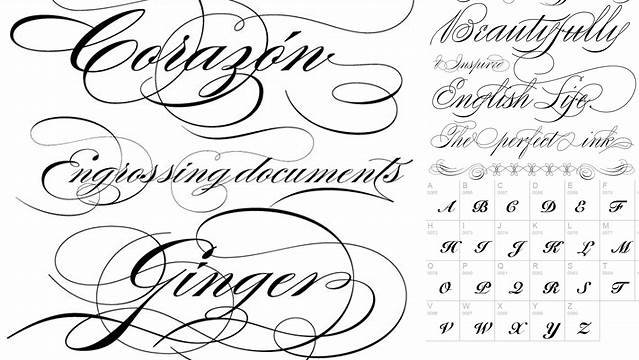
Elegant Cursive Tattoo Fonts: Generator & Styles Guide
Hey guys! Are you on the hunt for the perfect cursive tattoo font that screams elegance and style? You've come to the right place! In this comprehensive guide, we'll dive deep into the world of tattoo fonts, specifically focusing on those beautiful cursive styles. We'll explore what makes a font elegant, how to choose the best one for your tattoo, and even introduce you to some fantastic tattoo font generators that can help bring your vision to life. Whether you're a tattoo newbie or a seasoned ink enthusiast, this guide is packed with valuable information to help you make the best choice for your next piece of body art. So, let's get started and unlock the secrets of elegant cursive tattoo fonts!
When it comes to tattoo fonts cursive elegant, not all fonts are created equal. Elegance in a cursive font is a delicate balance of several key elements. First and foremost, the flow and connection between letters are crucial. An elegant cursive font should have a smooth, almost calligraphic feel, where each letter seamlessly transitions into the next. Think about the classic handwriting styles you've admired β they often have a natural rhythm and grace that makes them visually appealing. This flow is what gives the font its sophisticated and refined look. The thickness and weight of the lines also play a significant role. Typically, elegant cursive fonts feature varying line thicknesses, adding depth and visual interest. A consistent, uniform line weight can sometimes make a font appear too rigid or monotonous. The flourishes and embellishments are another important aspect. A well-placed swirl, loop, or tail can elevate a cursive font from simple to stunning. However, itβs essential to use these decorative elements sparingly. Too many flourishes can make the font look cluttered and difficult to read, especially in a tattoo where the ink can spread over time. The overall letterforms themselves contribute to the elegance of the font. Letters should be well-proportioned and balanced, with a harmonious relationship between ascenders (the parts of letters that extend above the main body, like the top of 'h'), descenders (the parts that extend below the main body, like the tail of 'g'), and the x-height (the height of the main body of the lowercase letters). A font with these characteristics will not only look beautiful but also ensure that your tattoo remains legible and aesthetically pleasing for years to come. Consider the spacing between letters and words as well. Proper spacing is crucial for readability and visual appeal. Too little spacing can make the words look crowded and difficult to decipher, while too much spacing can make the text appear disjointed. An elegant cursive font will have carefully considered spacing that enhances its overall look and feel. Elegance, in the context of cursive tattoo fonts, is about achieving a refined and sophisticated aesthetic through the thoughtful design of letterforms, connections, and embellishments. By paying attention to these details, you can choose a font that truly reflects your personal style and makes a lasting impression.
Choosing the best cursive font for your tattoo is a crucial decision that requires careful consideration. After all, this is an investment in a piece of art that you'll carry with you for life! The right font can beautifully express your message and style, while the wrong one can leave you with regrets. So, where do you start? First, think about the message you want to convey. What words or phrases are you considering? Is it a quote, a name, a date, or something else entirely? The length and complexity of the text will influence the font you choose. A longer phrase might require a simpler, more legible font, while a shorter word or name can handle more elaborate flourishes. Next, consider the placement of your tattoo. The size and shape of the area you're tattooing will dictate the size and style of the font. A delicate, flowing script might look stunning on a collarbone, while a bolder, more defined font might be better suited for a larger area like the back or thigh. Think about the overall aesthetic you're aiming for. Do you want something classic and timeless, or more modern and edgy? There are countless cursive fonts out there, ranging from traditional calligraphy styles to contemporary scripts. Research different styles and find examples that resonate with you. Look at tattoo designs online, in magazines, and in tattoo studios. Pay attention to the fonts that catch your eye and try to identify what you like about them. Consider the legibility of the font. This is especially important for tattoos that include a lot of text. While a fancy, ornate font might look beautiful on a screen, it might not translate well to skin. The ink can spread over time, making the letters blur together if the font is too intricate. Choose a font that is clear and easy to read, even from a distance. Think about the longevity of the font. Some fonts are trendy and popular right now, but they might look dated in a few years. If you want a tattoo that will stand the test of time, opt for a classic, timeless font that has been used for generations. Don't be afraid to experiment with different fonts and sizes. Many tattoo font generators allow you to preview your text in various fonts, which can be incredibly helpful in making your decision. You can also consult with your tattoo artist. They have experience working with different fonts and can offer valuable advice on what will look best on your skin. They can also help you adjust the size and spacing of the font to ensure it fits perfectly in your chosen location. Choosing the right cursive font for your tattoo is a personal journey. Take your time, do your research, and don't settle for anything less than perfection. With a little effort, you can find a font that will make your tattoo a true work of art.
Alright, guys, let's talk about a game-changer in the world of tattoo design: tattoo font generators! These awesome tools are designed to help you visualize your tattoo in a variety of fonts before you even step into the tattoo studio. Think of them as your personal font playground, where you can experiment with different styles, sizes, and layouts until you find the perfect match for your vision. So, what exactly is a tattoo font generator, and how does it work? Simply put, it's an online tool that allows you to type in your desired text and see it displayed in a multitude of fonts. Most generators offer a wide range of cursive fonts, from elegant and flowing scripts to bold and dramatic styles. You can usually customize the size, color, and even the background of the text to get a realistic preview of how your tattoo will look on your skin. One of the biggest advantages of using a tattoo font generator is the sheer convenience it offers. Instead of spending hours browsing through font libraries or relying solely on your artist's suggestions, you can quickly and easily explore hundreds of options from the comfort of your own home. This can save you a lot of time and effort in the long run. Another major benefit is the ability to visualize your tattoo before it's permanent. It's one thing to see a font on a computer screen, but it's another to see your actual text displayed in that font. Tattoo font generators allow you to do just that, helping you avoid any potential regrets down the road. Many generators also offer additional features that can further enhance your design process. For example, some allow you to upload an image of the area where you plan to get your tattoo, so you can see how the font will look in context. Others provide options for adding embellishments, borders, or other design elements to your text. When choosing a tattoo font generator, it's important to consider a few key factors. First, look for a generator that offers a wide selection of fonts, especially cursive styles. The more options you have, the better your chances of finding the perfect font for your tattoo. Second, make sure the generator is easy to use and navigate. A clunky or confusing interface can make the design process frustrating rather than fun. Third, check if the generator allows you to customize the font size, color, and background. These features are essential for getting an accurate preview of your tattoo. Finally, consider whether the generator offers any additional features, such as the ability to upload images or add embellishments. While these features aren't strictly necessary, they can be a nice bonus. Using a tattoo font generator is a fantastic way to explore your options and find the perfect font for your tattoo. It's a valuable tool that can help you make a confident decision and ensure that your tattoo is everything you've ever dreamed of.
So, you're ready to dive into the world of elegant cursive fonts for tattoos, but you're not sure where to start? Don't worry, we've got you covered! There are tons of stunning cursive fonts out there, each with its own unique personality and charm. Let's take a look at some of the most popular and timeless options that are sure to make your tattoo a true masterpiece. First up, we have the classic Script MT Bold. This font is a go-to choice for many tattoo enthusiasts because of its clean lines and elegant flourishes. It's highly legible and works well for both short words and longer phrases. The bold weight adds a touch of drama, making it stand out beautifully on the skin. Next, let's talk about Zapfino. This font is a true work of art, known for its intricate details and flowing letterforms. It's inspired by traditional calligraphy and has a distinctly romantic and sophisticated feel. Zapfino is perfect for those who want a tattoo that's both elegant and artistic. If you're looking for something a bit more modern, consider Great Vibes. This font has a contemporary feel with its clean lines and graceful curves. It's highly versatile and works well for a variety of tattoo styles, from minimalist to more elaborate designs. Great Vibes is a great choice if you want a font that's both stylish and easy to read. Another popular option is Brush Script MT. This font has a casual yet elegant feel, reminiscent of hand-lettered signs and vintage advertisements. It's perfect for tattoos that have a personal touch and a sense of nostalgia. Brush Script MT is a great choice for quotes, names, or dates that you want to stand out. For those who love a touch of drama, Edwardian Script ITC is a fantastic choice. This font is known for its dramatic flourishes and sweeping curves. It's perfect for tattoos that make a bold statement and exude confidence. Edwardian Script ITC is a great choice for shorter phrases or single words that you want to emphasize. If you're looking for something delicate and feminine, Freehand 521 is a beautiful option. This font has a light and airy feel with its slender lines and graceful curves. It's perfect for tattoos that are subtle and understated, yet still elegant and chic. Freehand 521 is a great choice for names, initials, or short quotes. Remember, the best font for your tattoo will depend on your personal style and the message you want to convey. Take your time to explore different options and find a font that truly speaks to you. Don't be afraid to experiment and try something new! With so many stunning cursive fonts to choose from, you're sure to find the perfect one for your next tattoo.
Okay, so you've chosen your elegant cursive font β awesome! But the journey doesn't end there. Using a cursive font effectively in a tattoo design requires a bit of finesse. You want your tattoo to look amazing for years to come, so let's dive into some top tips to ensure your cursive font tattoo is a masterpiece. First and foremost, size matters! Cursive fonts, especially those with intricate details, can become illegible if they're too small. Imagine those delicate swirls and loops blurring together over time β not the look you're going for, right? Work with your tattoo artist to determine the optimal size for your chosen font based on its complexity and the placement of your tattoo. Generally, larger tattoos allow for more intricate fonts, while smaller tattoos benefit from simpler, more legible cursive styles. Spacing is another crucial element. Just like size, proper spacing between letters and words is essential for readability. Cursive fonts, by their nature, connect letters, but too much connection can make the words look like a jumbled mess. Your tattoo artist will be able to adjust the spacing to ensure each letter and word is distinct and easy to read. Think about the placement of your tattoo. The location on your body can influence the font style and size you choose. For example, a flowing cursive script might look stunning along the curve of your collarbone, while a bolder, more defined cursive might be better suited for a larger area like your back or thigh. Consider how the font will interact with the natural contours of your body and choose a placement that enhances the design. Don't overcrowd your tattoo. Sometimes, less is more. If you're using a cursive font for a quote or phrase, make sure there's enough negative space around the text. Overcrowding your tattoo with additional elements can make it look cluttered and detract from the elegance of the font. Keep it simple and let the cursive shine. Choose your tattoo artist wisely. Not all artists are created equal, especially when it comes to lettering. Look for an artist who has a strong portfolio showcasing their experience with cursive fonts. A skilled artist will have a keen eye for detail and will be able to execute your design flawlessly. Discuss your vision with your artist and listen to their advice. They can offer valuable insights on font selection, size, spacing, and placement. Remember, they're the experts! Consider the longevity of your tattoo. As mentioned earlier, tattoos can spread and blur over time. This is especially true for intricate cursive fonts. Choose a font that is timeless and will still look beautiful years down the road. Avoid overly trendy fonts that might look dated in a few years. Follow the aftercare instructions diligently. Proper aftercare is crucial for ensuring your tattoo heals properly and the font remains crisp and legible. Clean your tattoo regularly, apply a healing ointment, and avoid sun exposure. By following these tips, you can ensure that your cursive font tattoo is a stunning piece of art that you'll love for a lifetime.
Alright, guys, we've reached the end of our deep dive into the world of tattoo fonts cursive elegant! We've explored what makes a font elegant, how to choose the best one for your tattoo, the magic of tattoo font generators, and even some popular font choices. Armed with this knowledge, you're now well-equipped to make an informed decision about your next piece of body art. Remember, a tattoo is a personal expression, and the font you choose plays a huge role in conveying your message and style. Take your time, do your research, and don't be afraid to experiment. Whether you opt for a classic script or a modern cursive, the key is to choose a font that resonates with you and makes you feel confident and excited. And most importantly, find a skilled tattoo artist who can bring your vision to life with precision and artistry. So, go ahead and start creating your dream tattoo! We hope this guide has been helpful and inspiring. Happy inking!